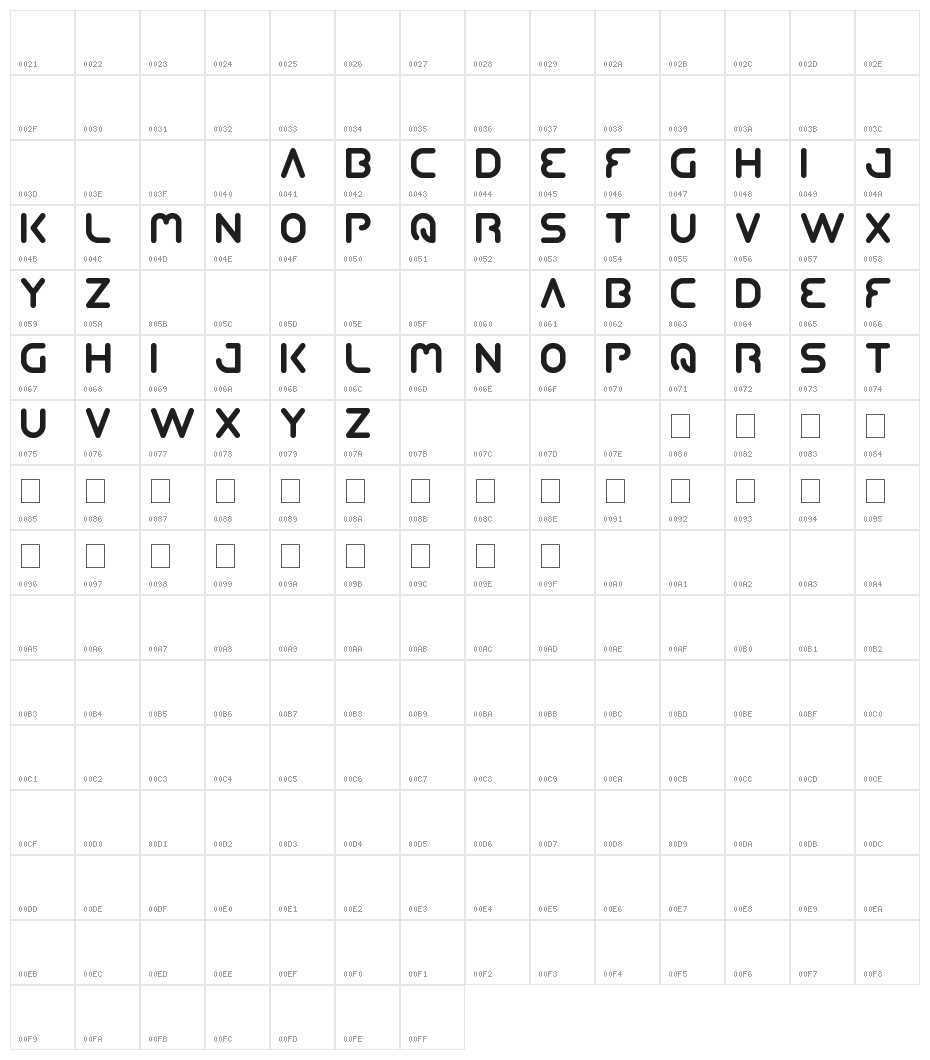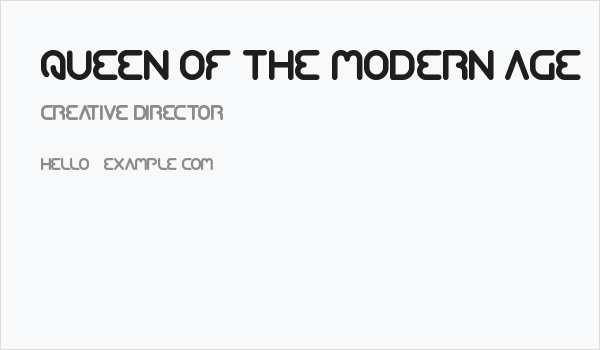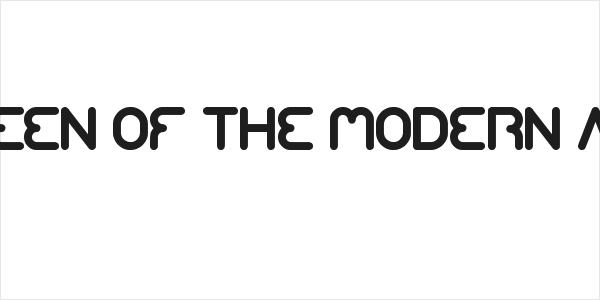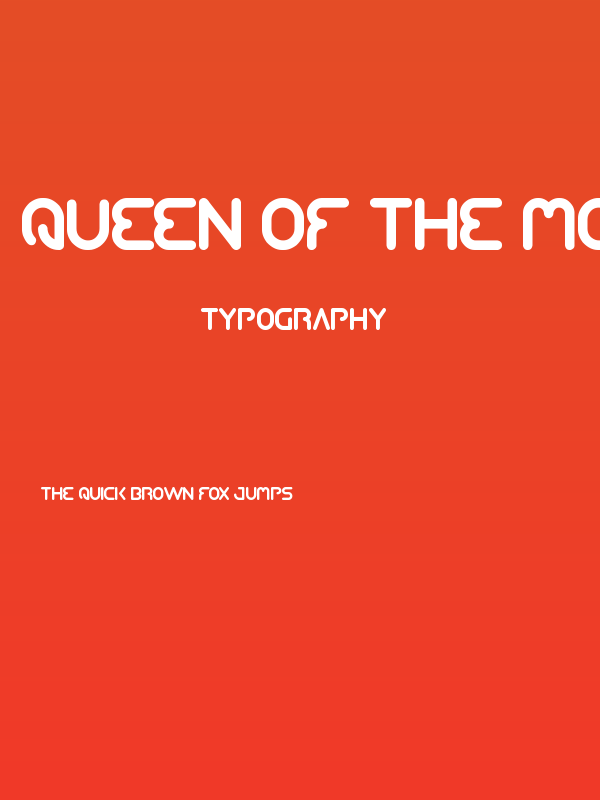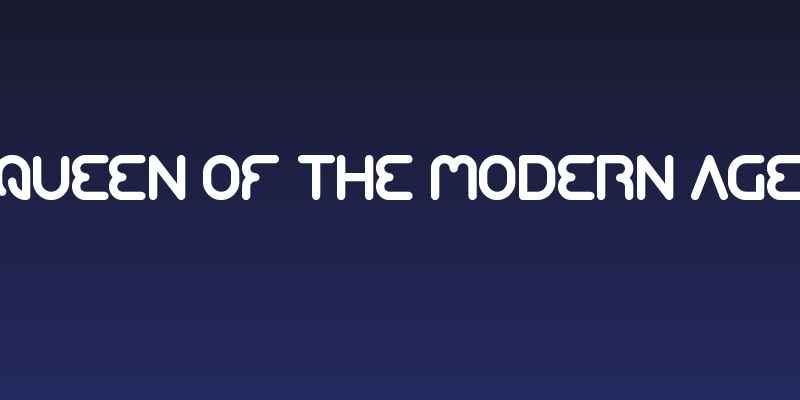
QUEEN OF THE MODERN AGE Font
QUEEN OF THE MODERN AGE Description
This font features a modern, rounded design with a futuristic aesthetic. The characters are bold and uniform, with smooth curves and consistent stroke widths that give it a sleek and contemporary look. The uppercase letters are particularly striking, with a geometric style that emphasizes symmetry and balance. The font maintains a cohesive appearance across all characters, making it ideal for projects that require a clean and polished look. Its distinct style is both eye-catching and versatile, suitable for a variety of design applications.
| Proposed Projects | Ideal for technology branding, modern advertising, futuristic posters, and digital interfaces. |